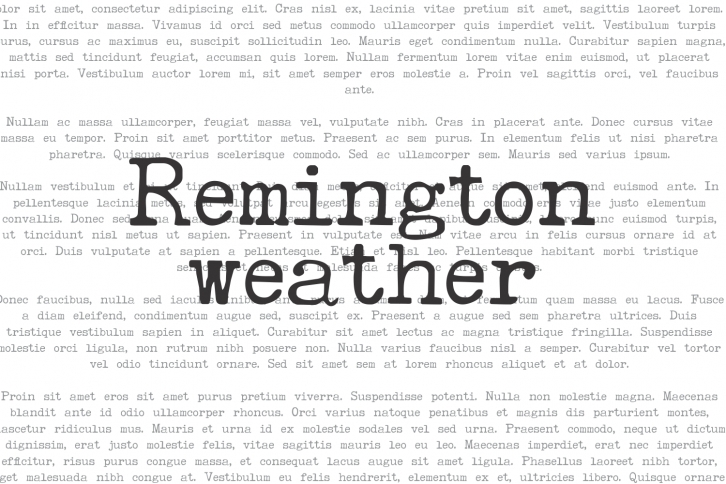
Remington Weather is a beautiful font that was designed by Intellecta Design. It's a great choice for designers and creatives who need such a font. It was released on March 27, 2018 and the file size is 8.37 MB. Remington Weather may give a more youthful, expressive and casual look to your project. It is a very beautiful, refined, elegant, and high-quality font.